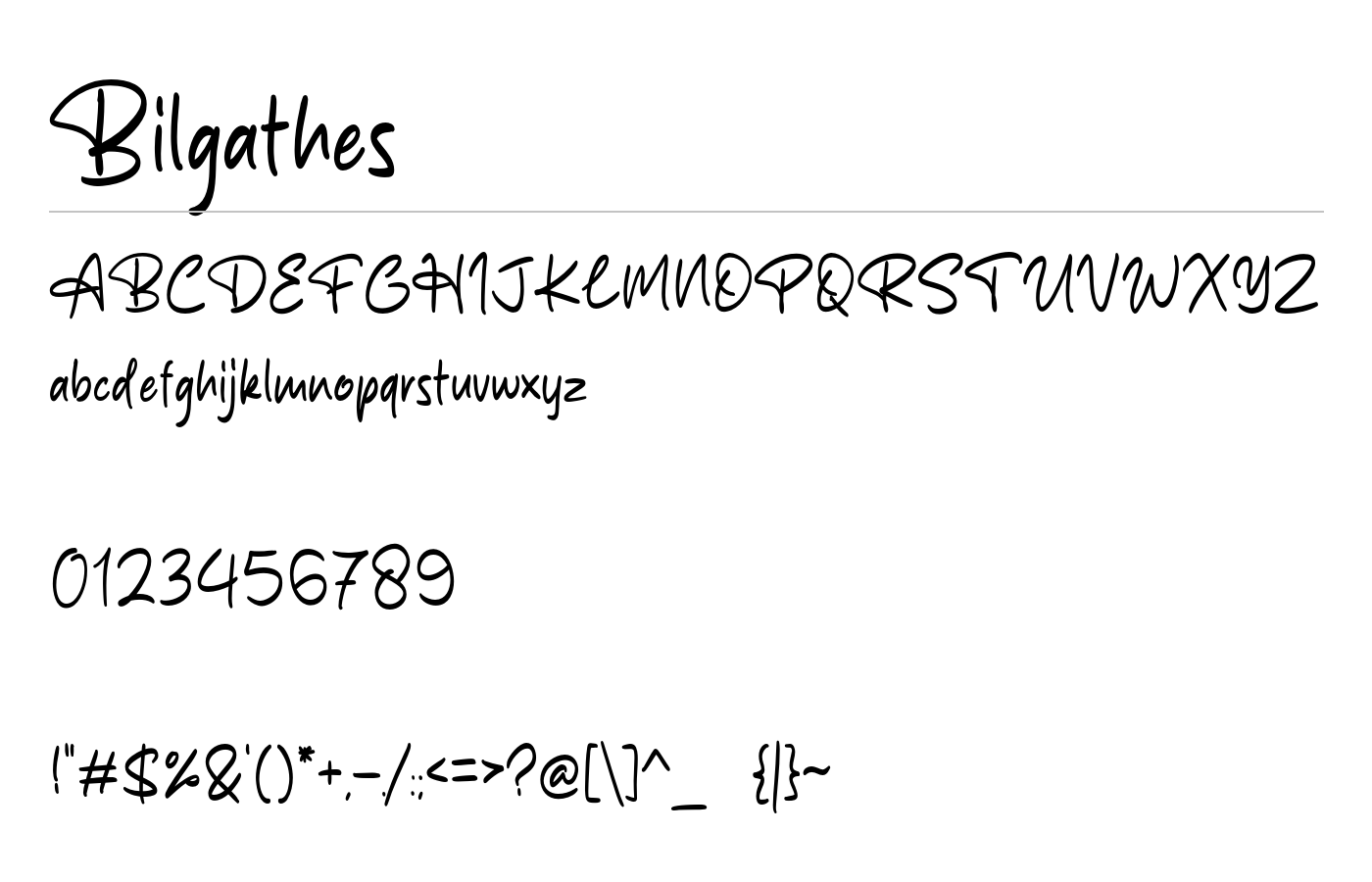
Bilgathes is a casual, handwritten sans serif font with a playful and friendly vibe. Its irregular, flowing strokes and slightly varied letterforms give it a natural, human touch, making it perfect for informal designs like personal branding, invitations, or creative projects. This font works well in headlines and logos where a warm, approachable personality is desired.
Bilgathes Font
About Bilgathes Font